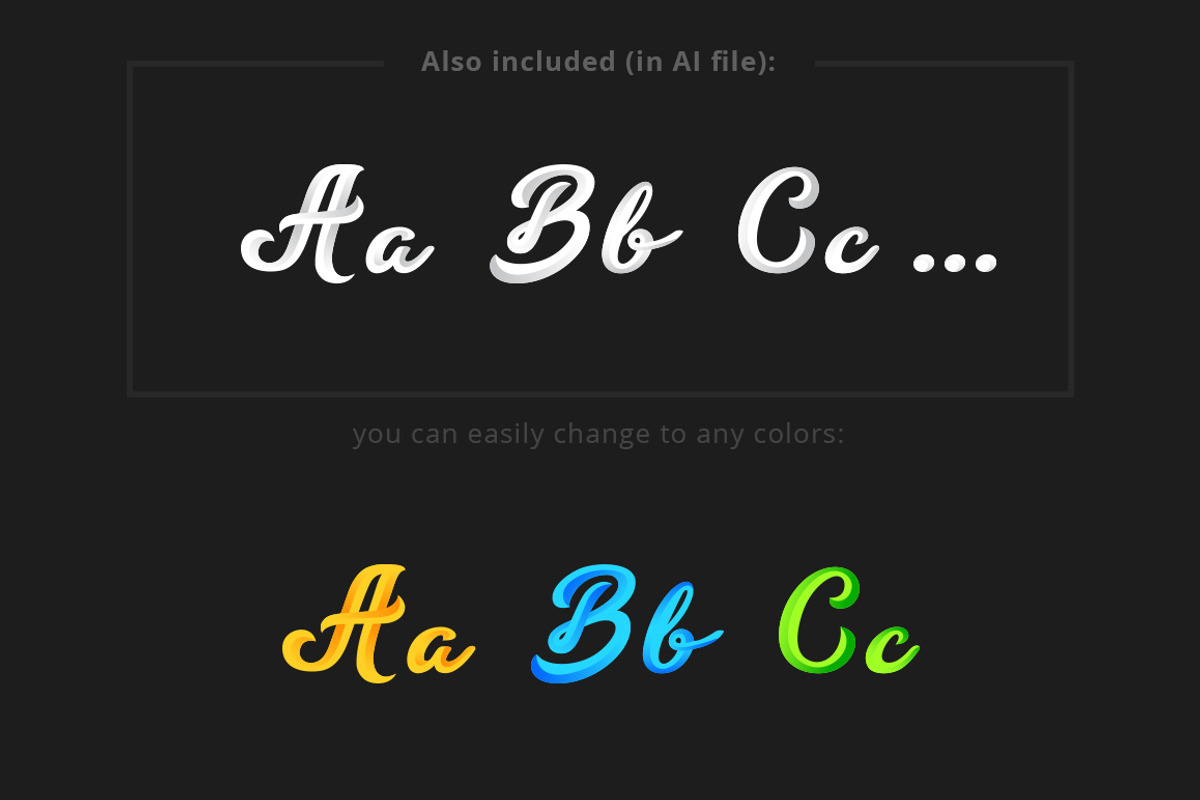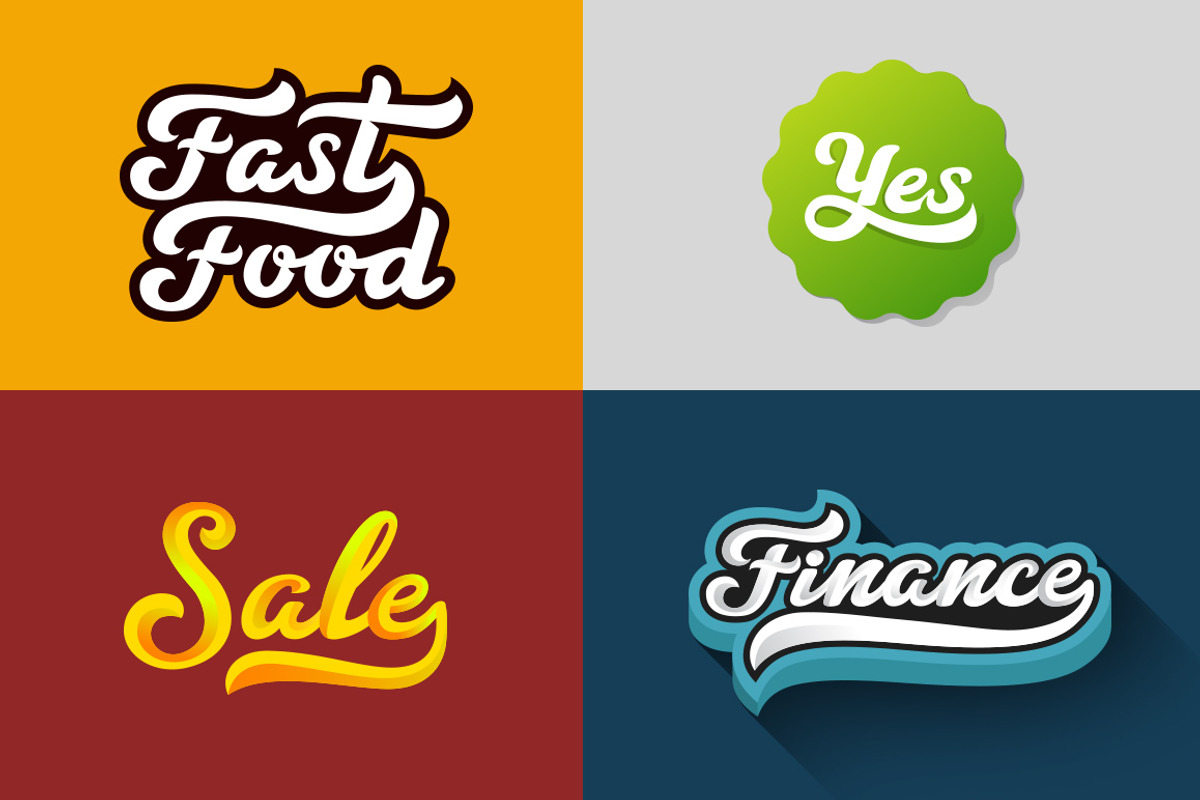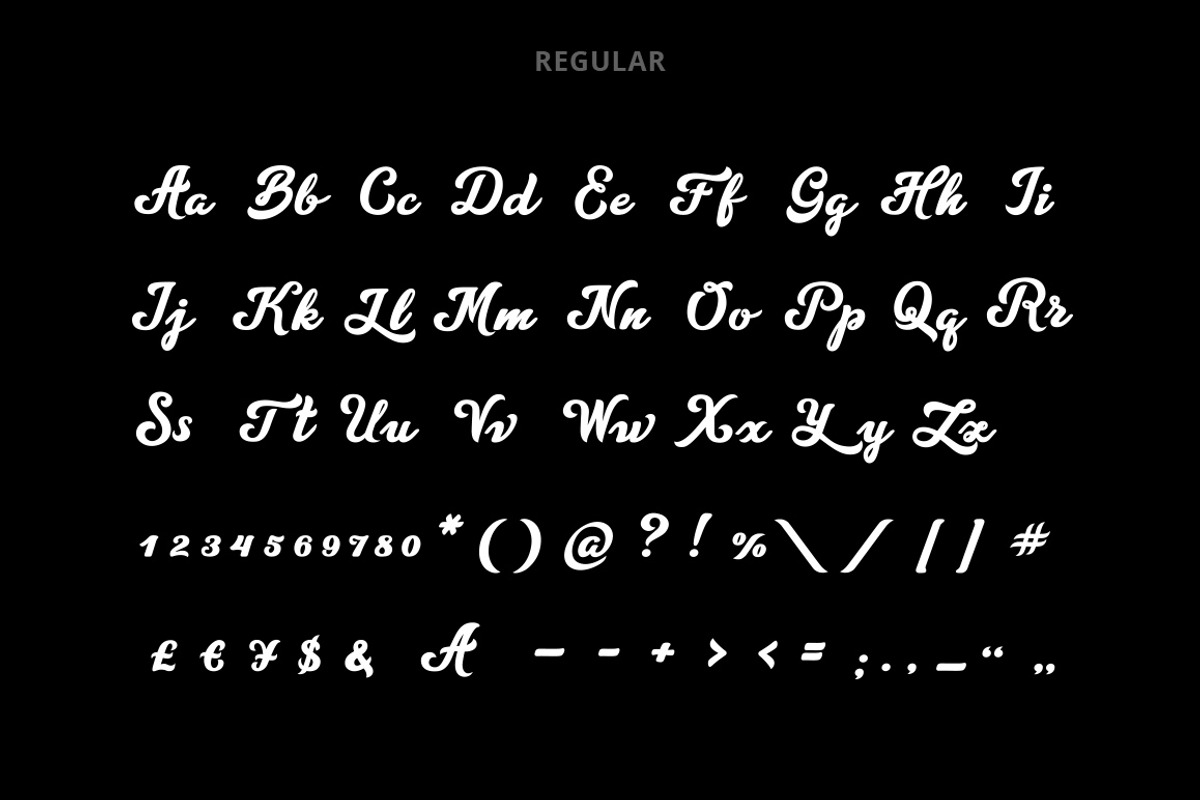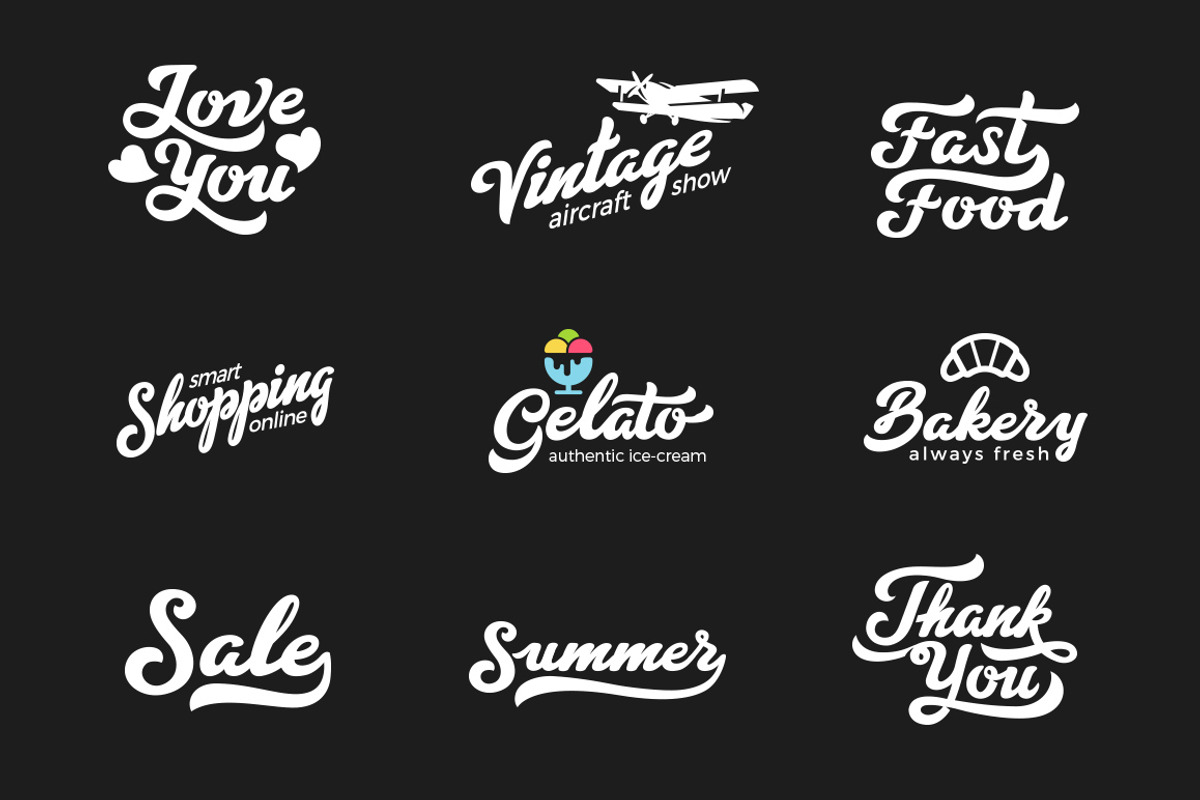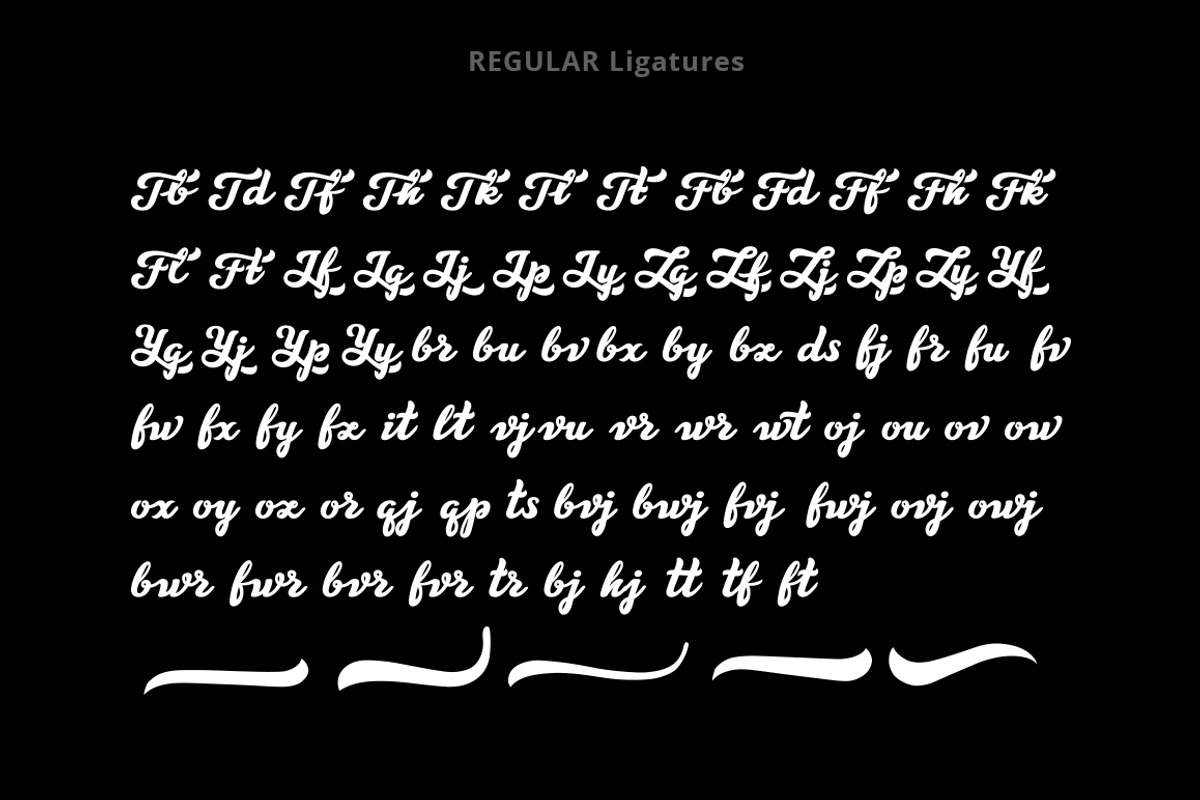
Letter Craft font
Letter Craft font by Sentavio is a font selected for branding, posters, packaging, typography.
Why Letter Craft font is worth a look
Letter Craft font by Sentavio fits naturally into Branding, posters, packaging, typography.